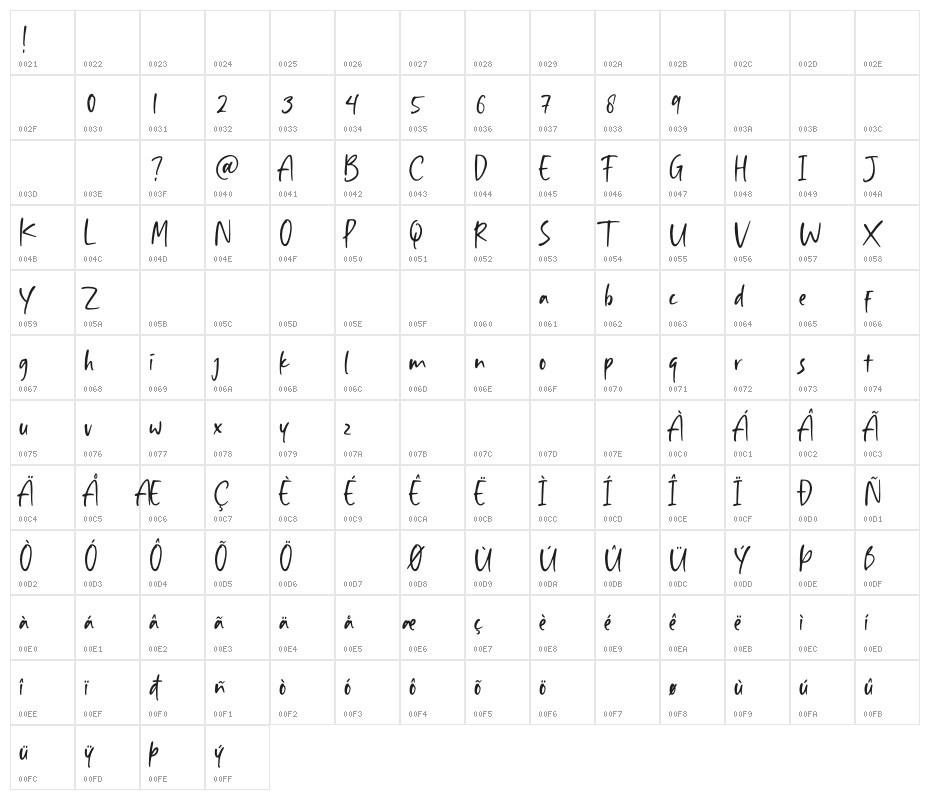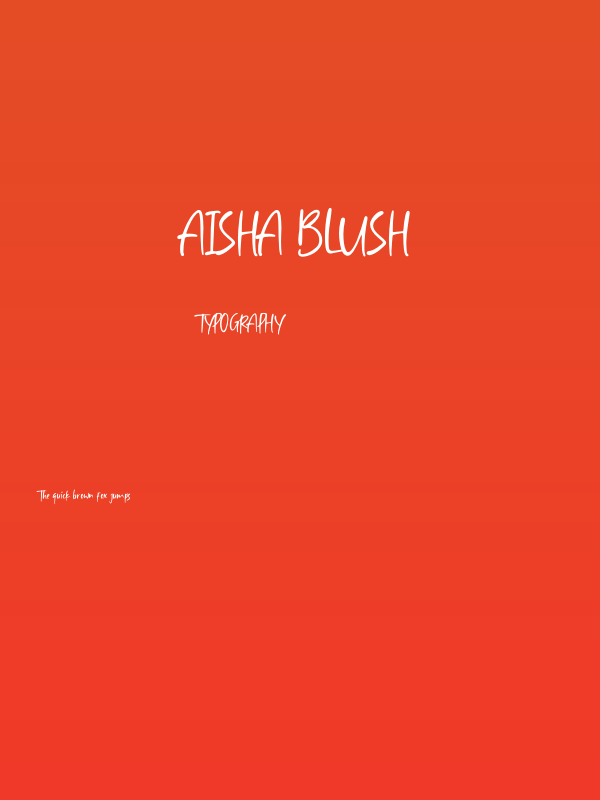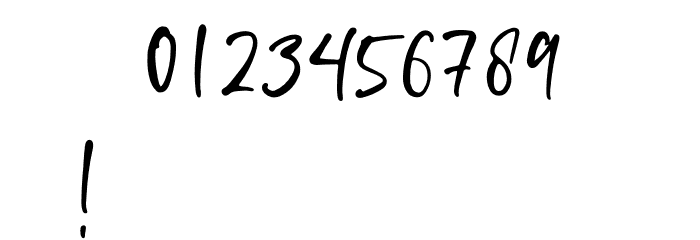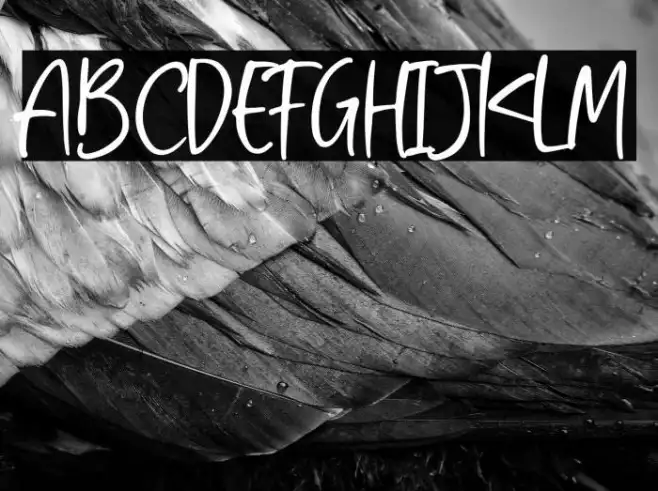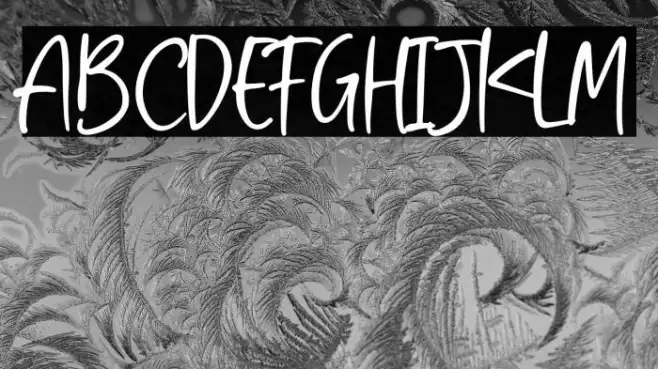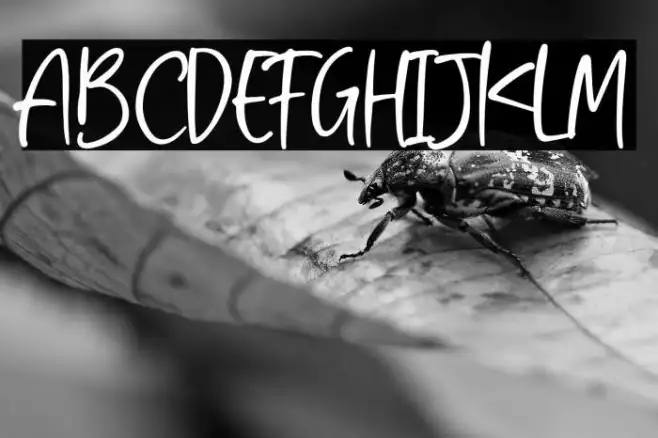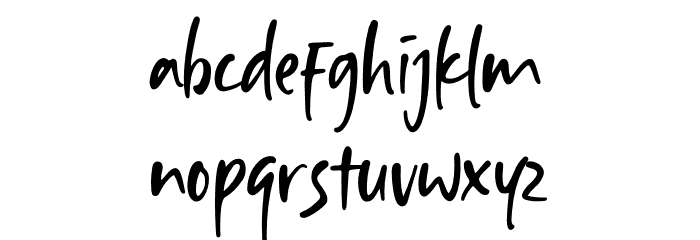
Aisha Blush Font
Aisha Blush Description
This font features a lively, handwritten style with a casual and friendly appearance. The characters are slightly slanted, giving them a dynamic and energetic feel. The strokes vary in thickness, adding a touch of personality and warmth. The uppercase letters are bold and prominent, while the lowercase letters maintain a consistent flow, enhancing readability. Numbers and special characters are designed to match the playful and informal aesthetic, making this font suitable for creative and expressive projects.
| Proposed Projects | Ideal for greeting cards, invitations, personal branding, social media graphics, and creative projects that require a personal touch. |